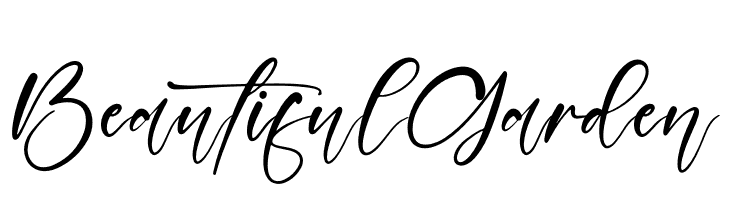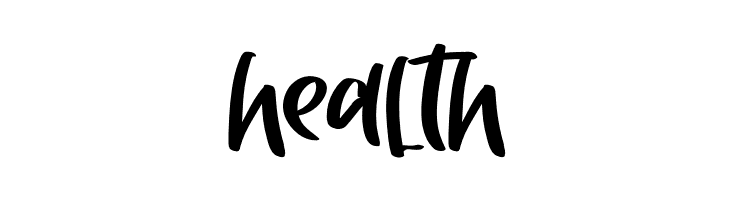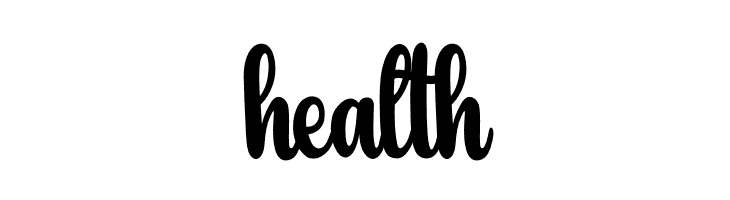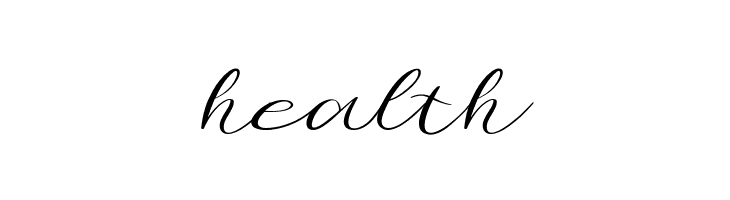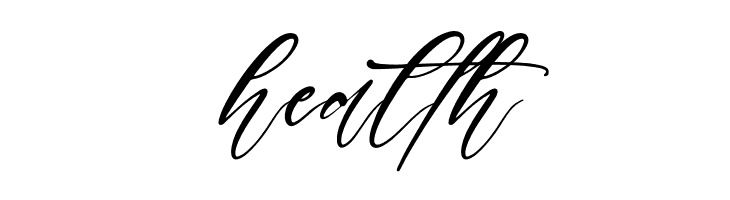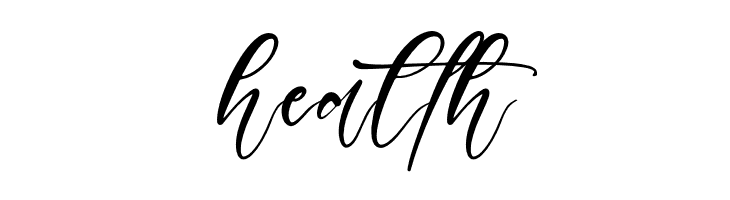
A playful, hand-drawn font with flowing, cursive-like strokes.
A bold, brush-style font with a playful and dynamic hand-drawn appearance.
An elegant, flowing script font with artistic flair.
A playful handwritten font with tall, narrow letters and a whimsical style.
An elegant, cursive font with interconnected letters and a calligraphic style.
A playful, elegant script font with a handwritten feel and bold strokes.
An elegant script font with flowing, cursive letterforms and medium contrast.
An elegant, cursive handwritten font with a fluid and italic style.
An elegant, flowing script font with graceful, cursive letterforms.
A whimsical, handwritten font with playful curves and varying stroke widths.